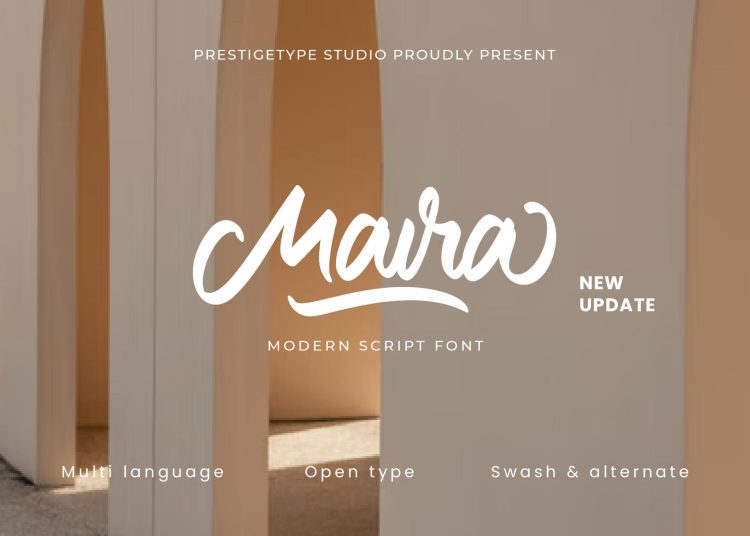
Maira Font
Maira is a beautifully crafted script font designed to elevate the aesthetics of your brand with elegance and sophistication. Each curve and character in Maira has been meticulously designed to ensure both beauty and readability. Its versatile and graceful style makes it a perfect choice for a wide range of applications, from personal projects to professional branding.
Key Features of Maira:
• Elegant Script Design: The font features smooth, flowing curves that add a touch of refinement and class to any design.
• Alternate Characters and Swashes: Includes numerous alternate characters and decorative swashes, providing ample creative options to enhance your designs.
• Readability: Despite its decorative nature, Maira maintains clarity, making it suitable for both large headlines and smaller text elements.